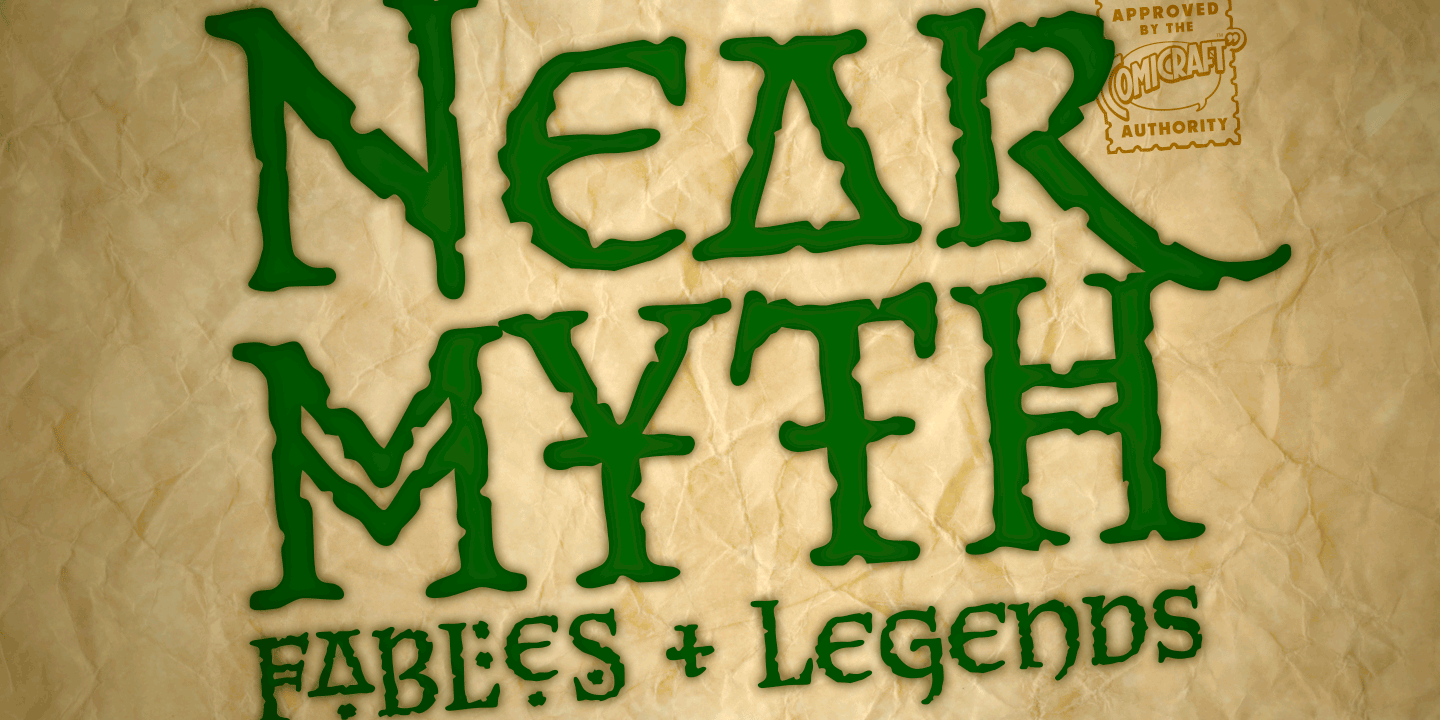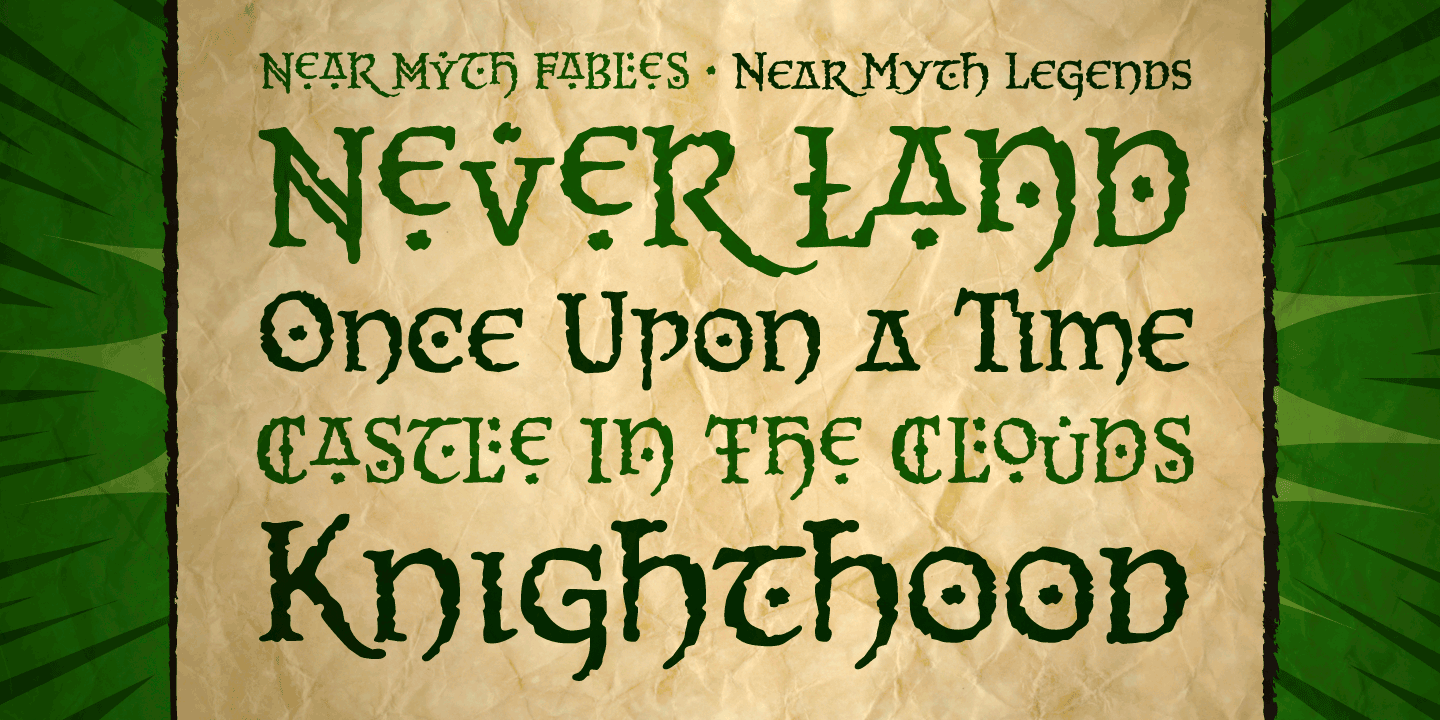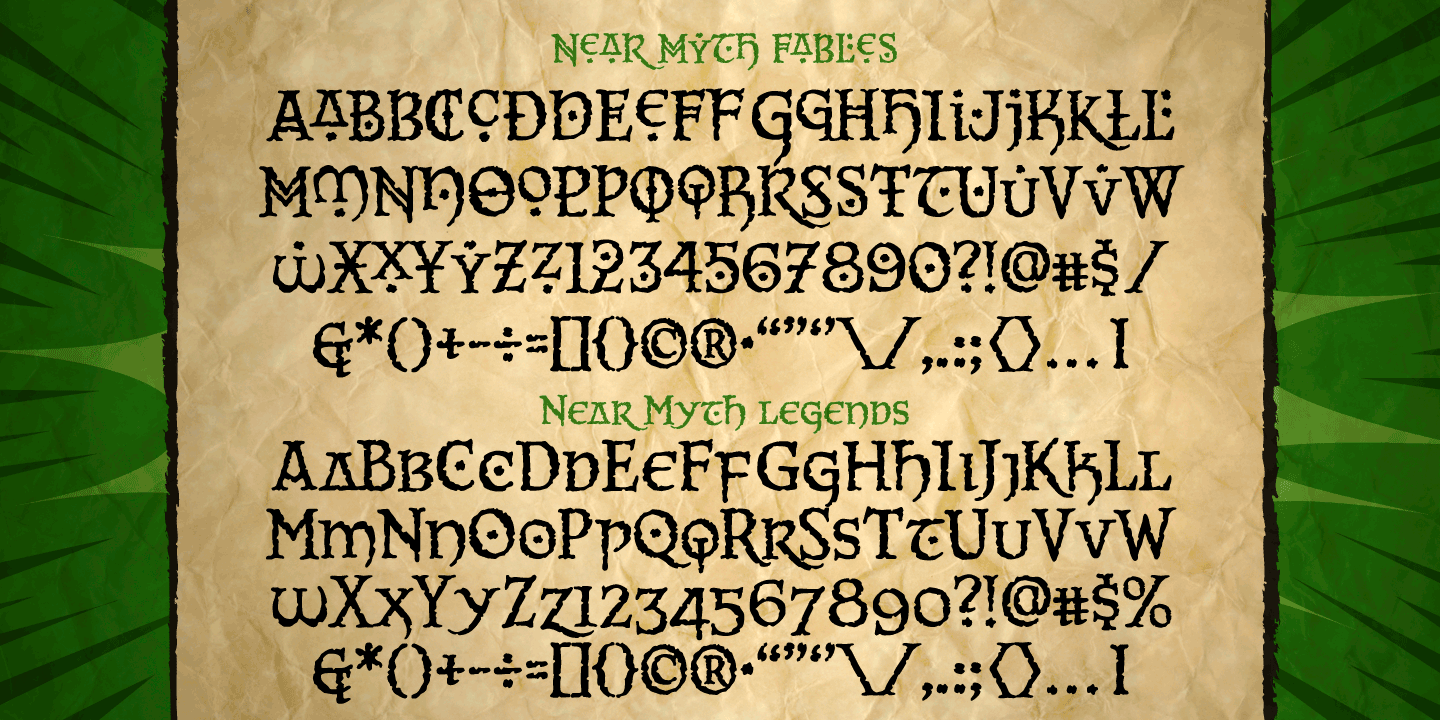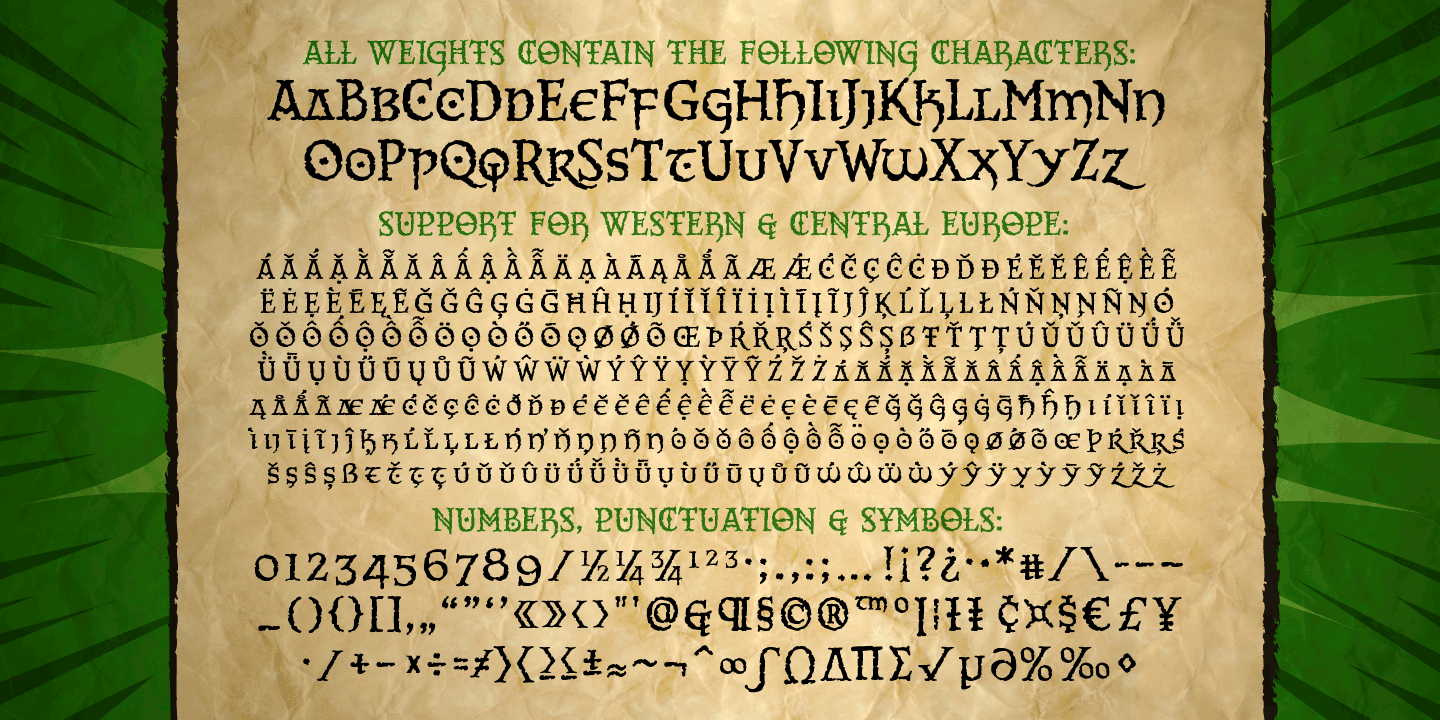
Near Myth
The Norse Gods of Asgard, the Titans of Olympus and the Elders of Middle Earth have spoken! Their pronouncements have been carved in the solid rock across the mountains of Midgard and their Legend will now be known to many... 'cause JG --- our very own Mr Fontastic -- signed a license for comicbookfonts.com to make the typestyles of the gods commercially available. No really, he made a deal with Loki. Dipped his pen in his own blood and everything.